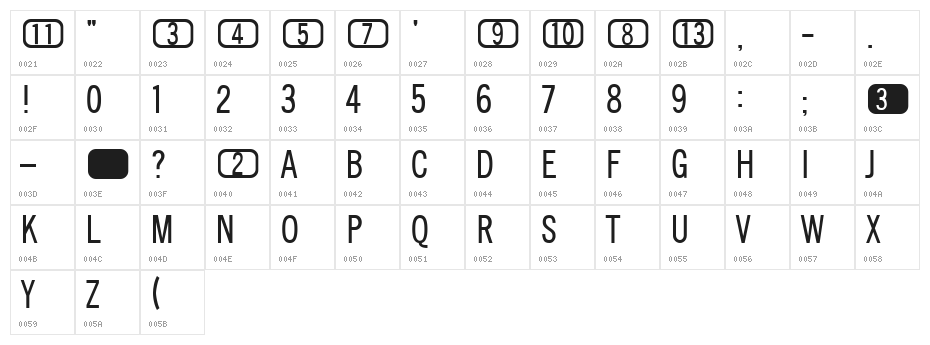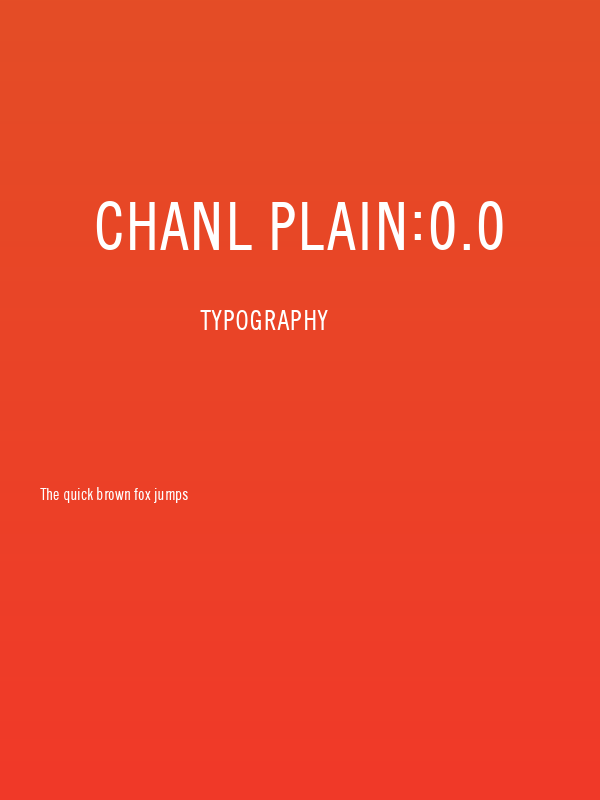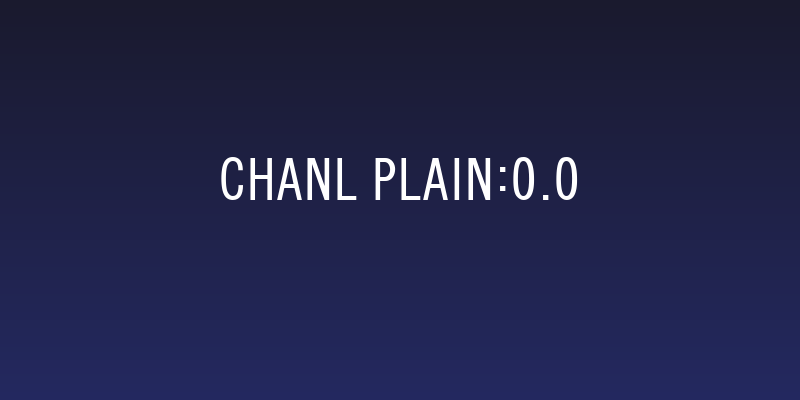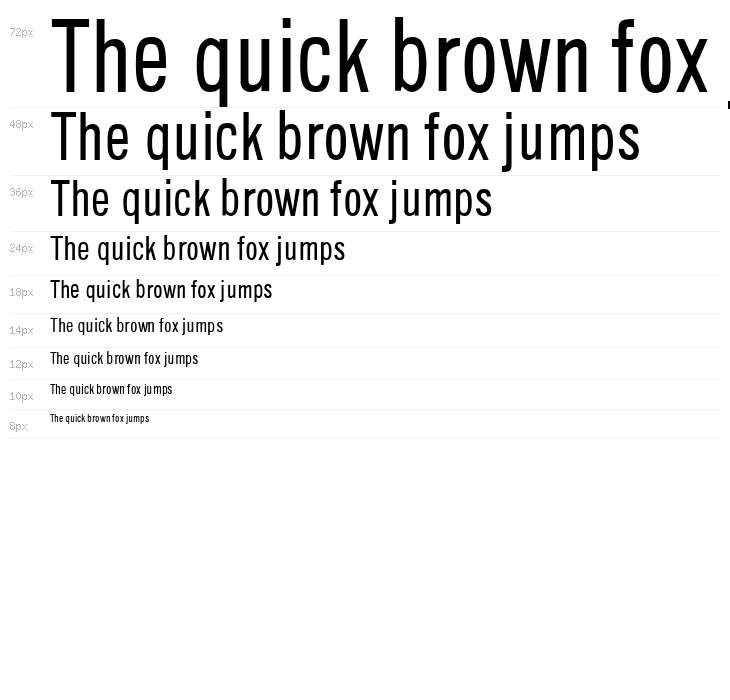
CHANL Plain:0.0 Font
CHANL Plain:0.0 Description
This font features a clean and modern sans-serif style with uniform stroke widths, providing a sleek and contemporary appearance. The characters are tall and slightly condensed, offering a professional and streamlined look. The uppercase letters are bold and assertive, while the lowercase letters maintain a consistent height, enhancing readability. The numerals are clear and distinct, making them suitable for various applications. Special characters are well-integrated, maintaining the overall aesthetic of the font. This font is versatile, suitable for both digital and print media, and can be used effectively in a range of design projects.